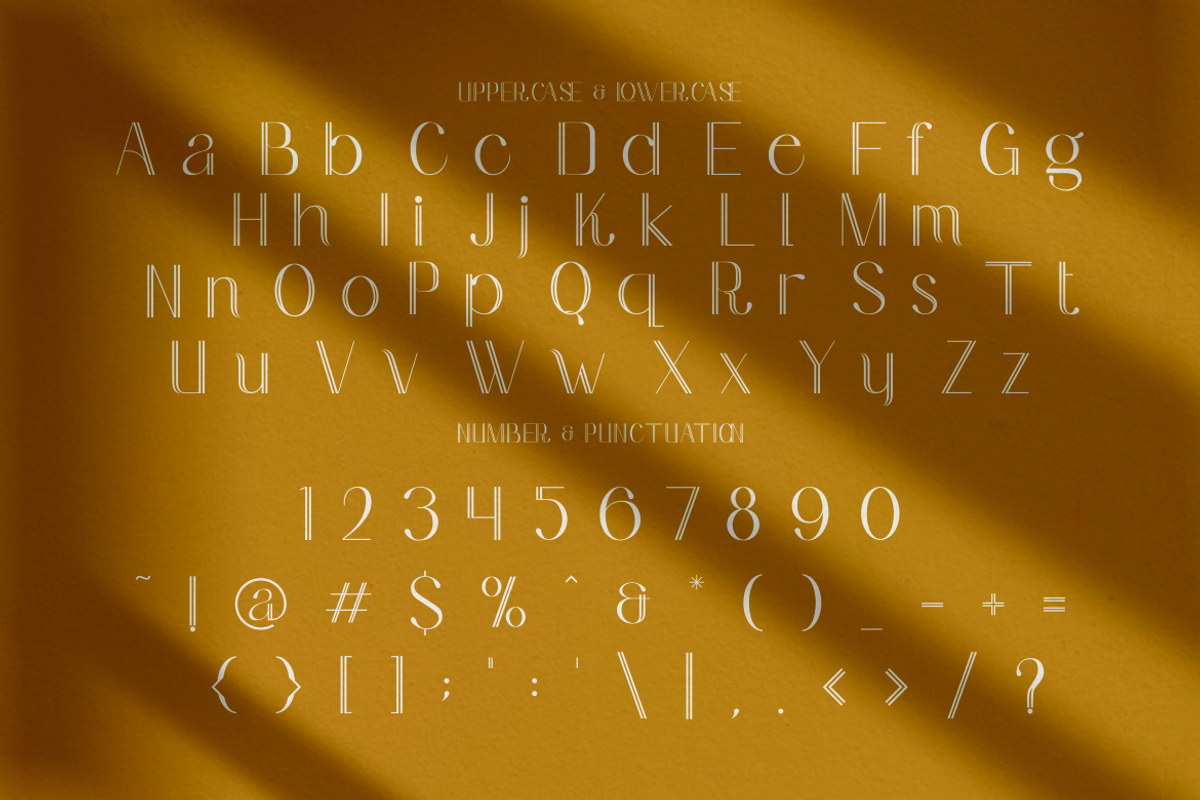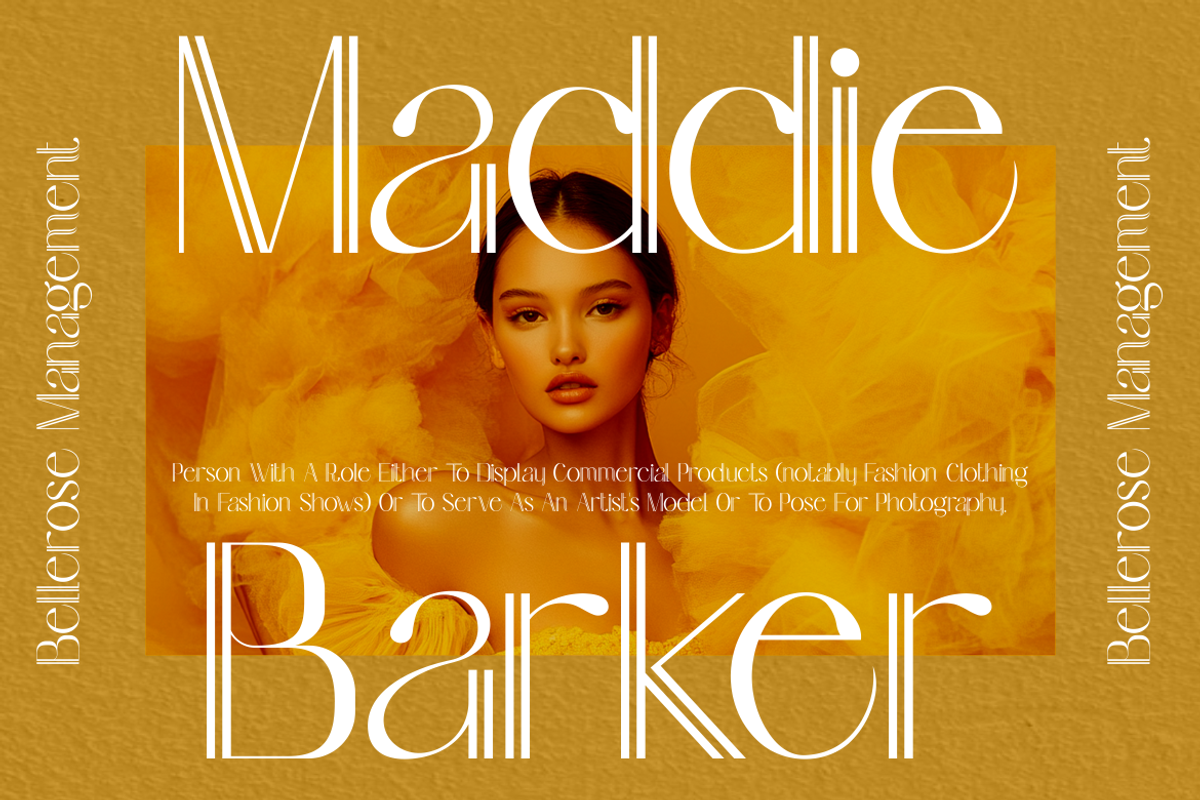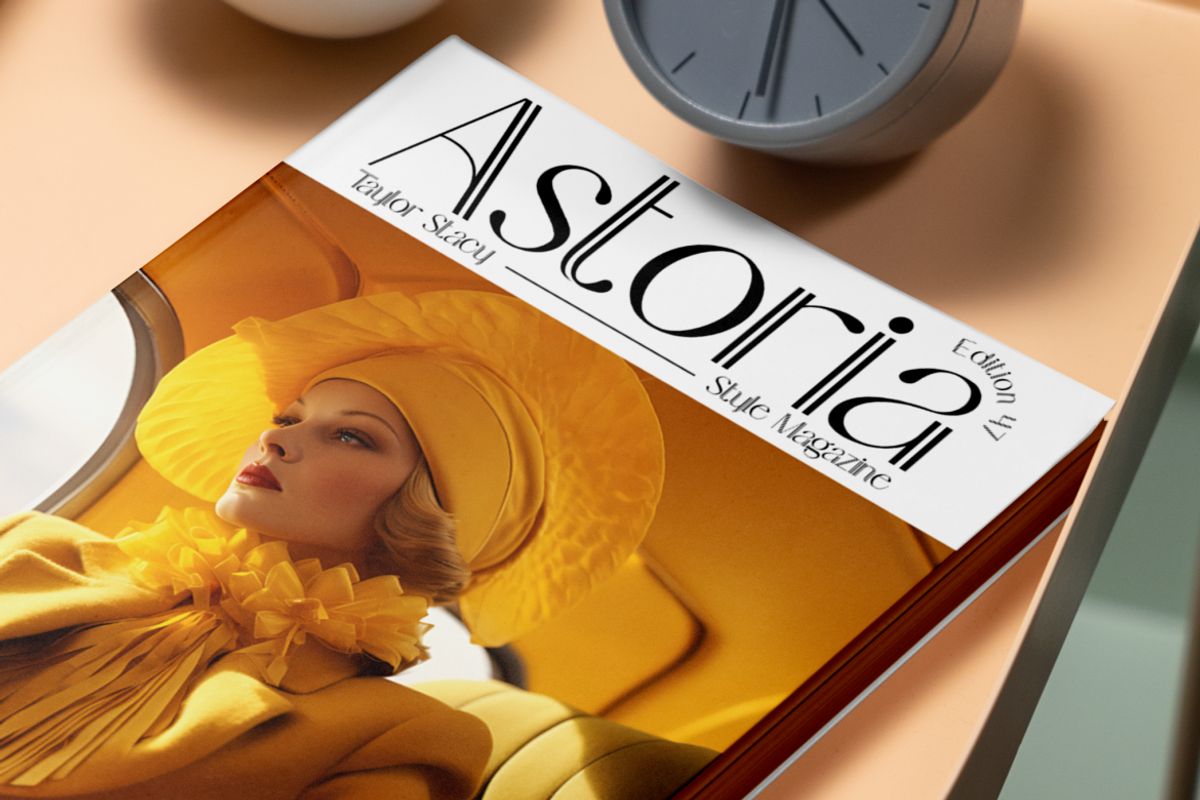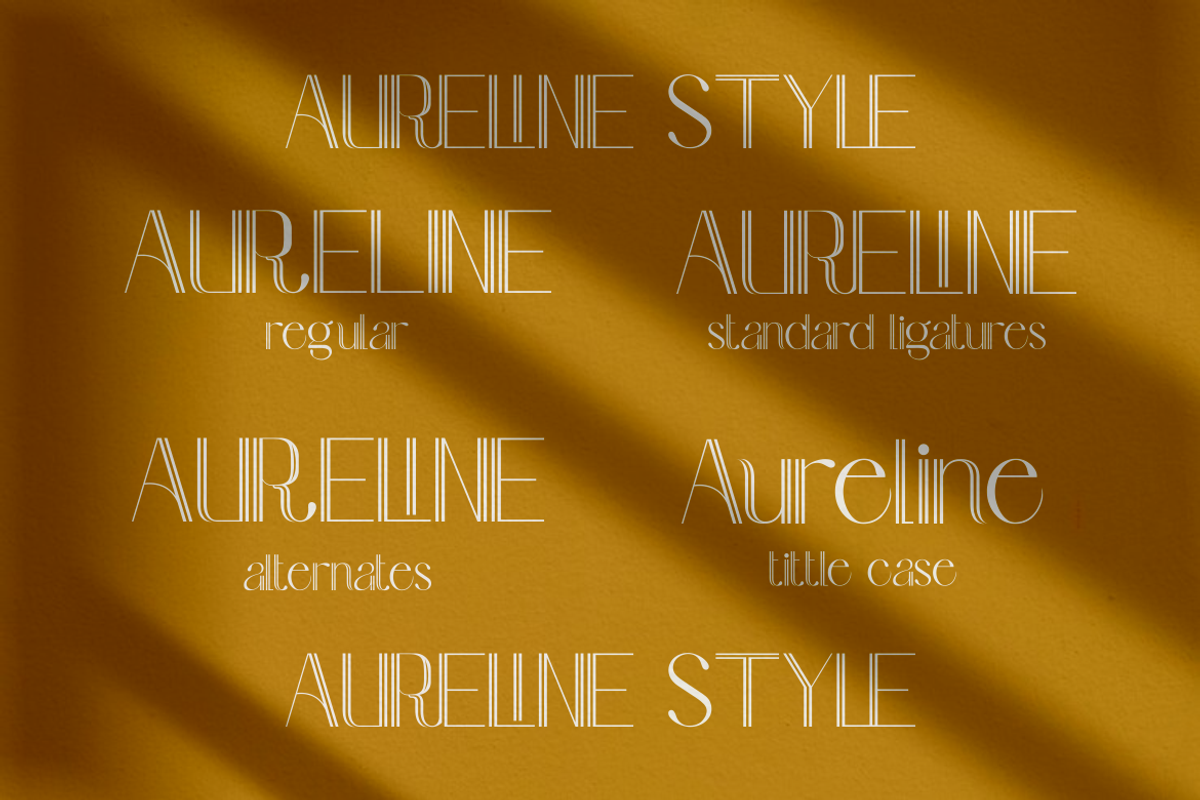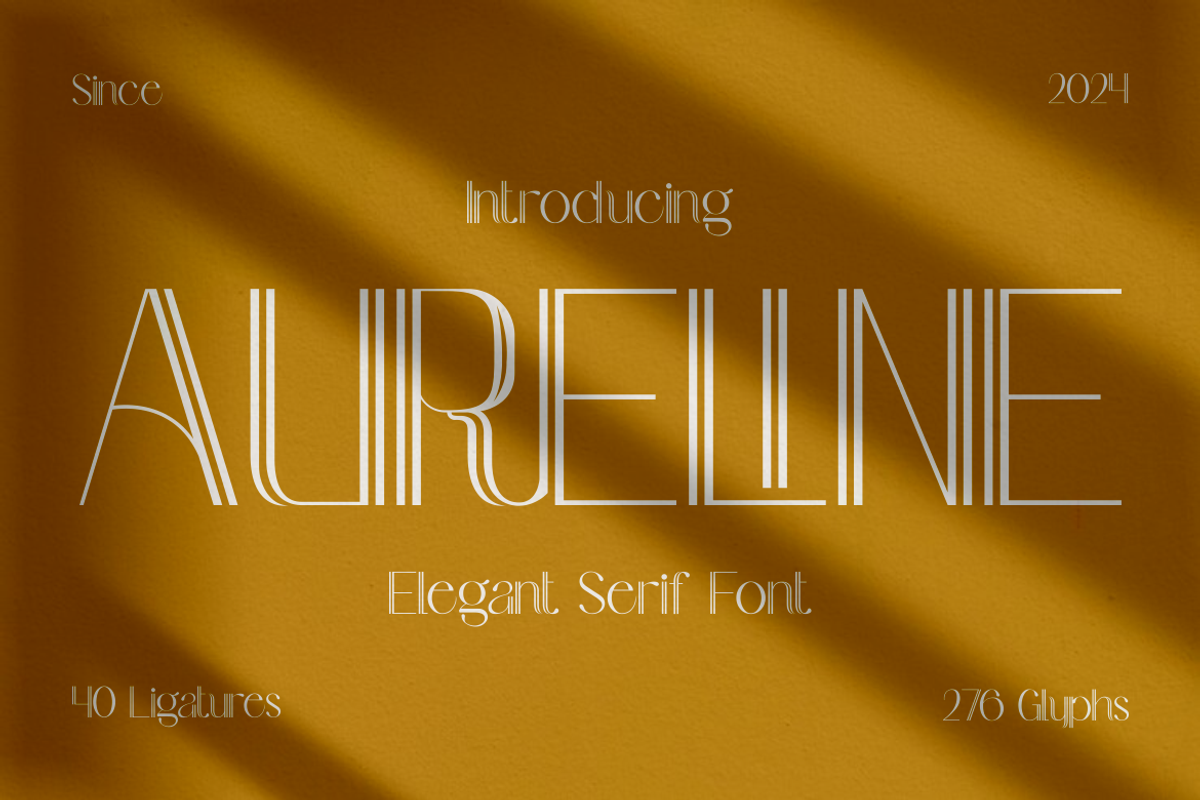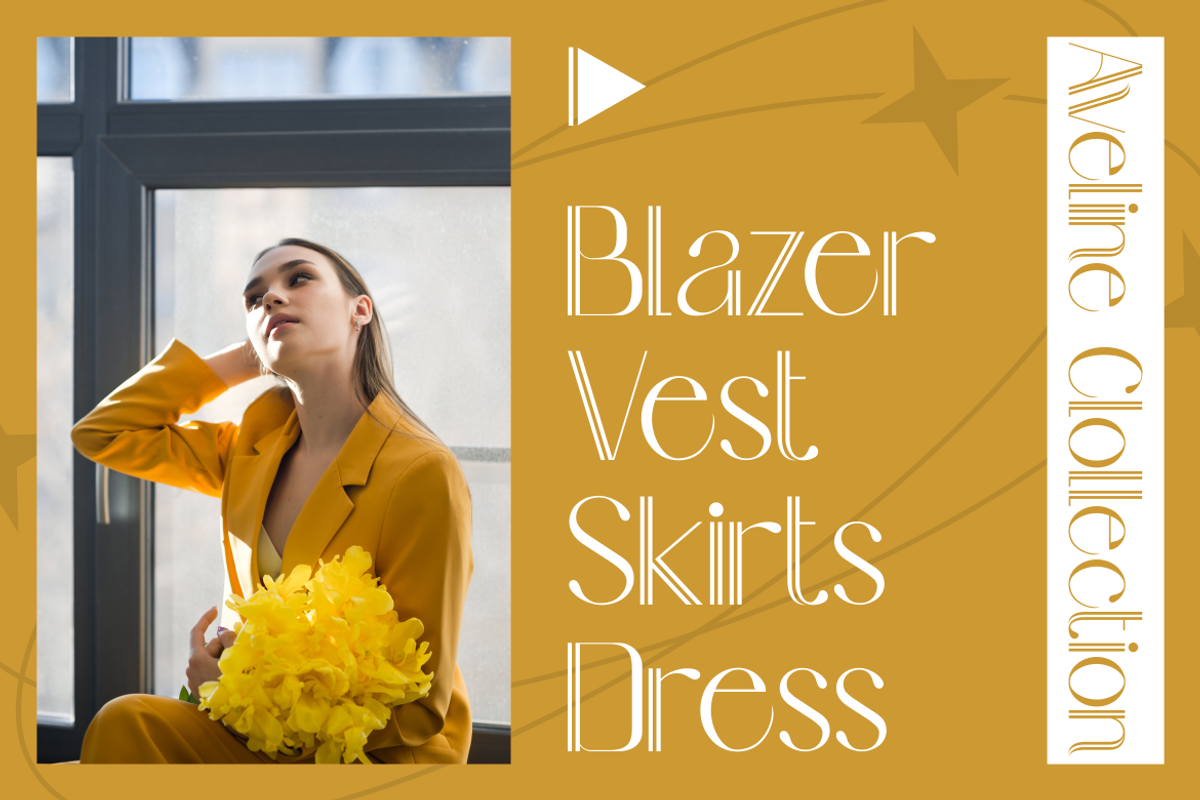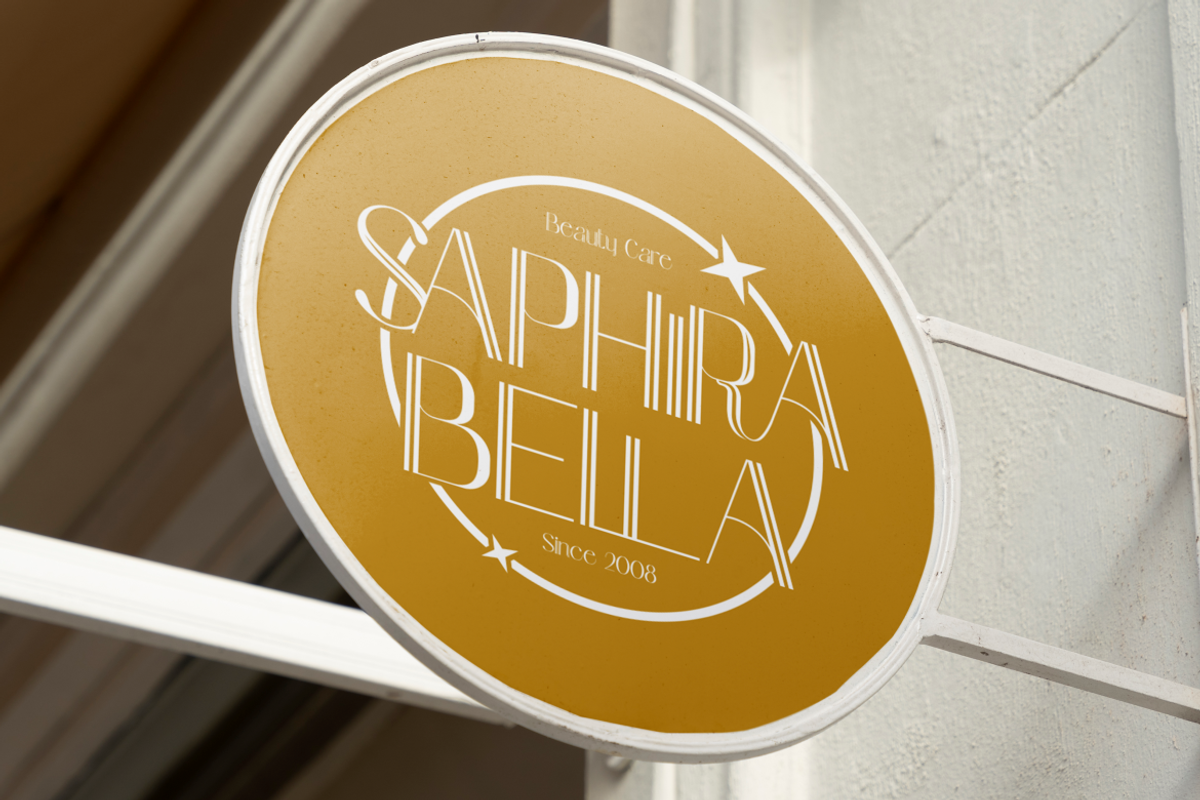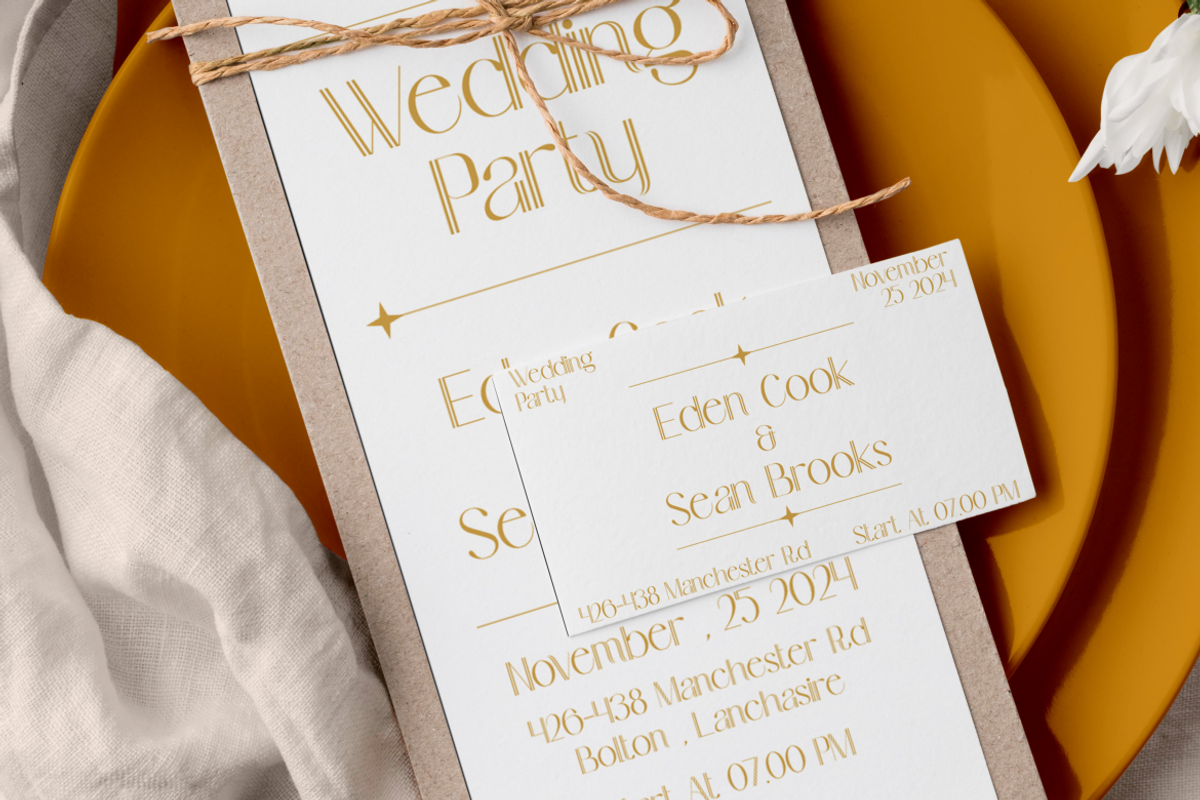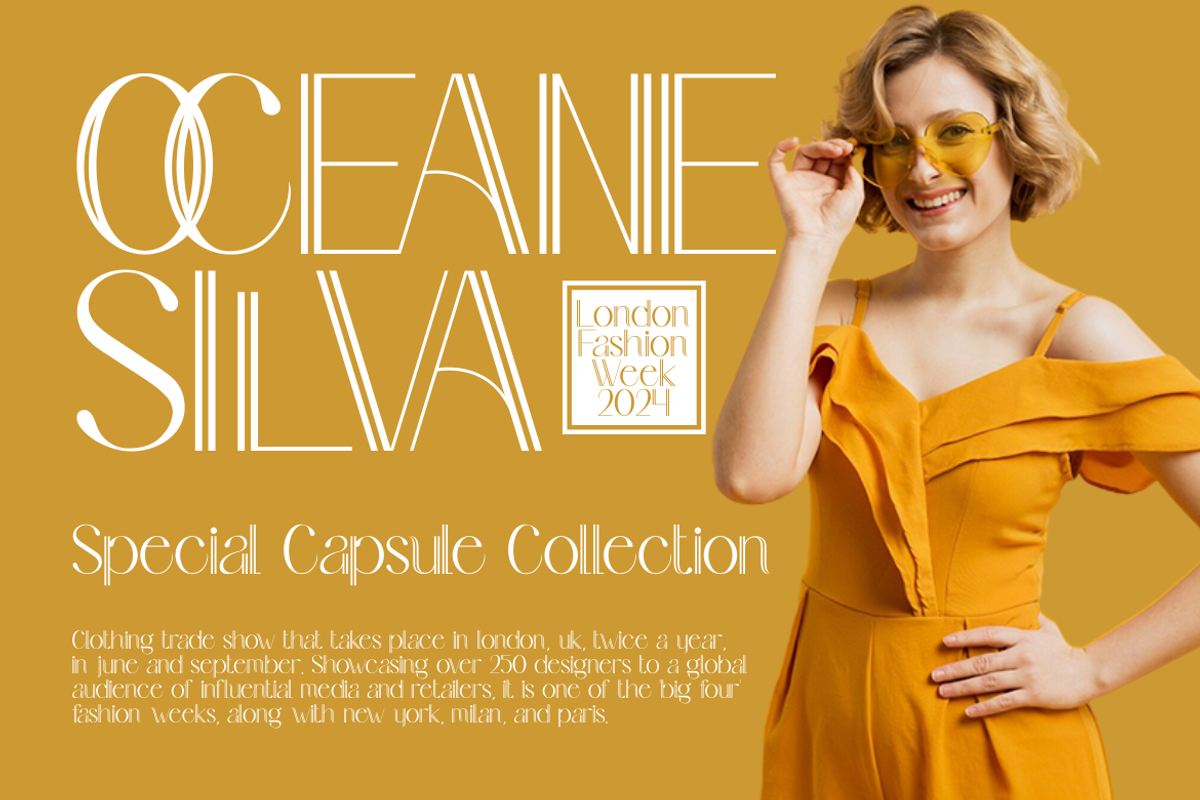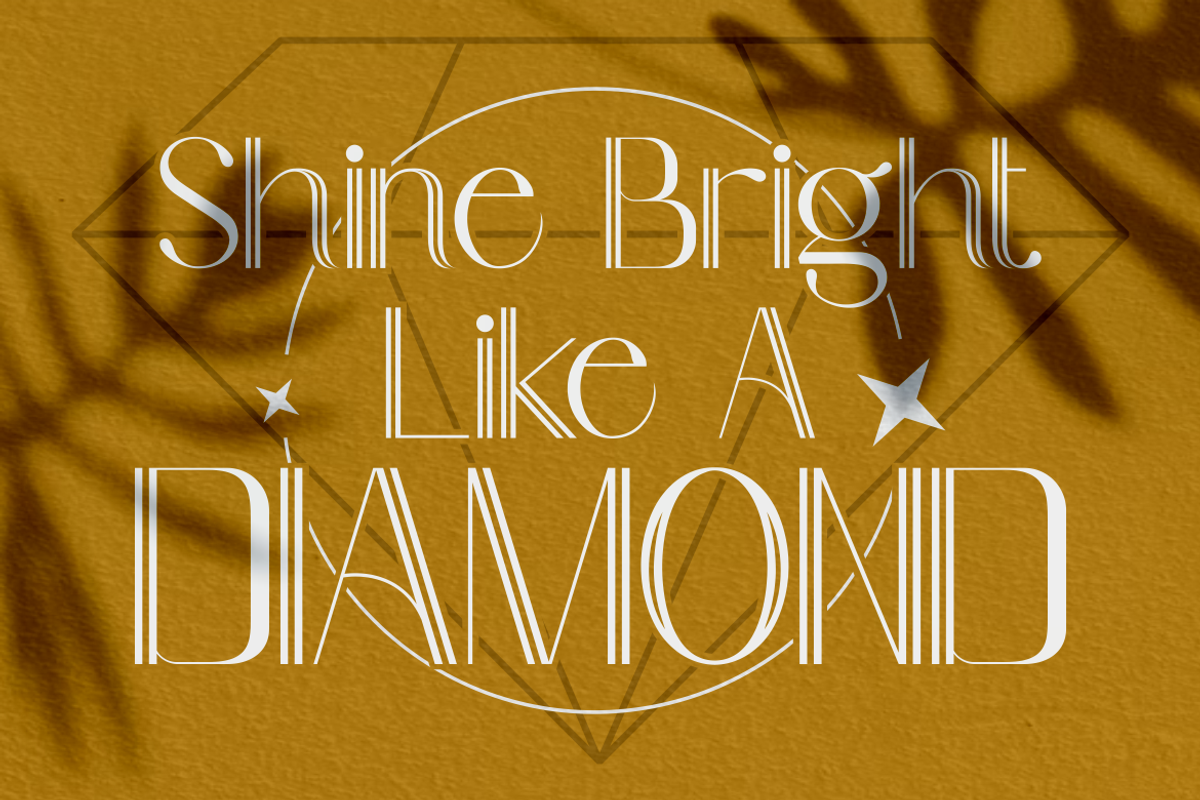
Aureline - Elegant Serif Font
Introducing Aureline - Elegant Serif Font, a sophisticated and modern typeface designed to bring a touch of luxury and refinement to any project. This font features a unique double-line serif style, combining minimalistic elegance with intricate details. The clean, elongated characters and subtle curves create a sense of balance and grace, perfect for high-end branding or editorial designs. Aureline’s refined ligatures and 276 glyphs provide creative versatility, ensuring a seamless fit for any design concept.
The backdrop of this design is a soft mustard-yellow texture, enhanced by shadow gradients that evoke warmth and elegance, further complementing the timeless aesthetic of the font. Aureline is ideal for premium projects such as luxury logos, wedding invitations, packaging, or magazine covers. Whether you're crafting a chic brand identity or designing stylish marketing materials, Aureline's modern yet classic style will elevate your work with a professional and polished finish.